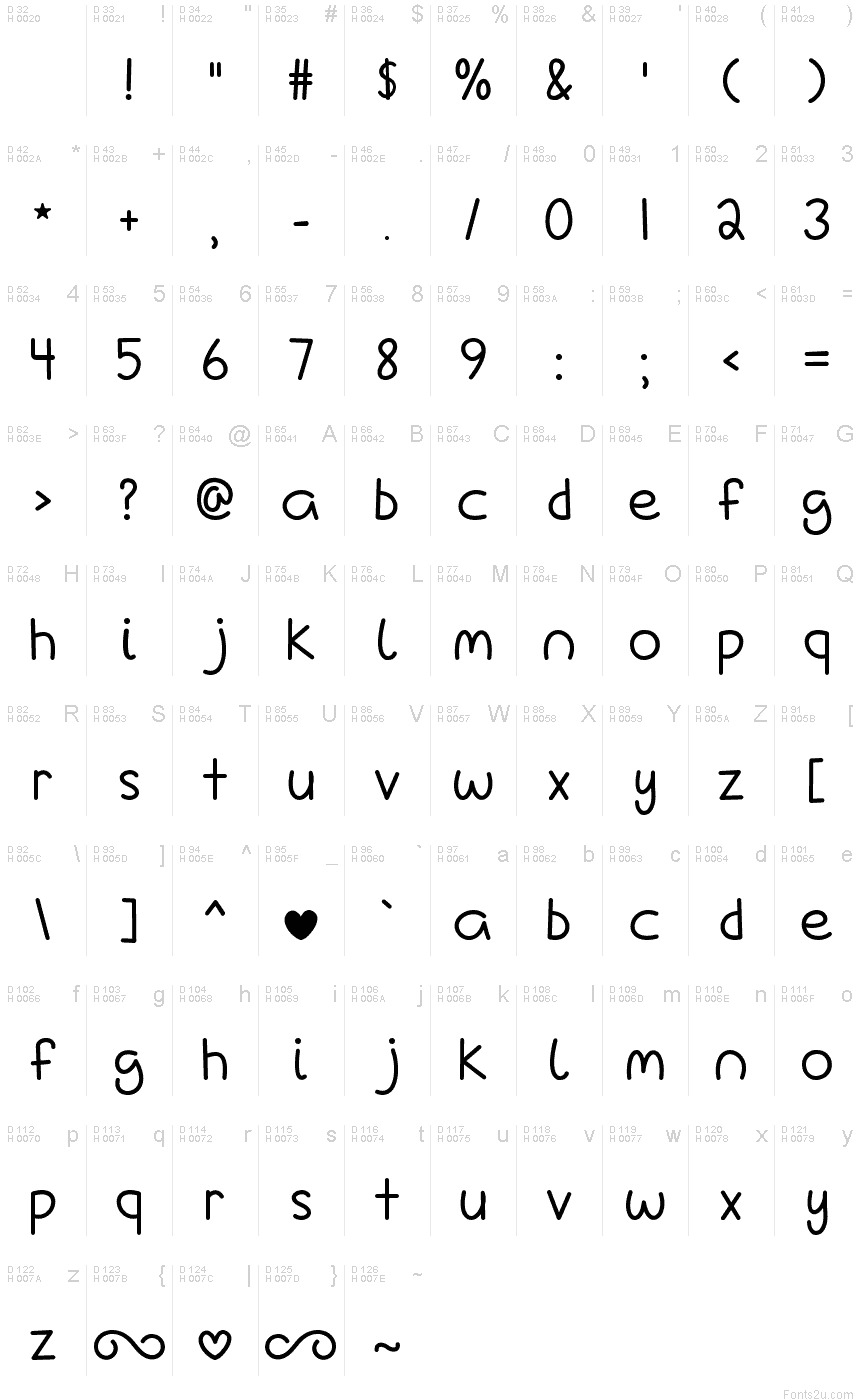
Love is a Many Complicated Thing by Misti Hammers of Misti's Fonts is a free handwritten font with slim, rounded strokes and an easygoing line. Tall uprights and deep loops make the silhouette lively.
It is especially convincing for personal stationery and informal invitations, where the open forms resemble neat notes written with a felt-tip pen. The same warm, unstudied manner also suits wedding favors, scrapbook captions, and boutique packaging, particularly for projects built around affection, friendship, or everyday celebrations.
- Type _ (underscore) for the solid heart.
- Type | (vertical bar) for the open heart.
- Type {} (curly braces) for the swirls.